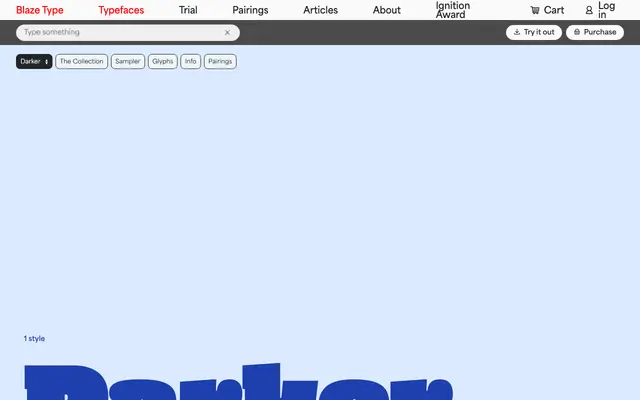
Darker
A single-weight ultra-black slab display face designed around the tension between extreme stroke weight and barely-legible counter shapes.
Designed by Antonio Delisiis during studies at ECAL, Switzerland, the face pushes counter shapes to near-closing point, creating dense, modular letter clusters suited to headline and poster work. Short ascenders and descenders allow tight line-stacking, reinforcing its character as a compact titling tool. Available in one weight only, it pairs best with lighter, less aggressive text faces.
A single-weight ultra-heavy slab display typeface with extremely compressed counters, designed explicitly for titling and headline use. The foundry describes it as a 'super heavy slab display font', placing it firmly in the display slab category.